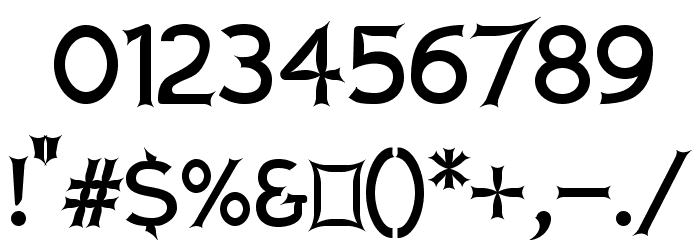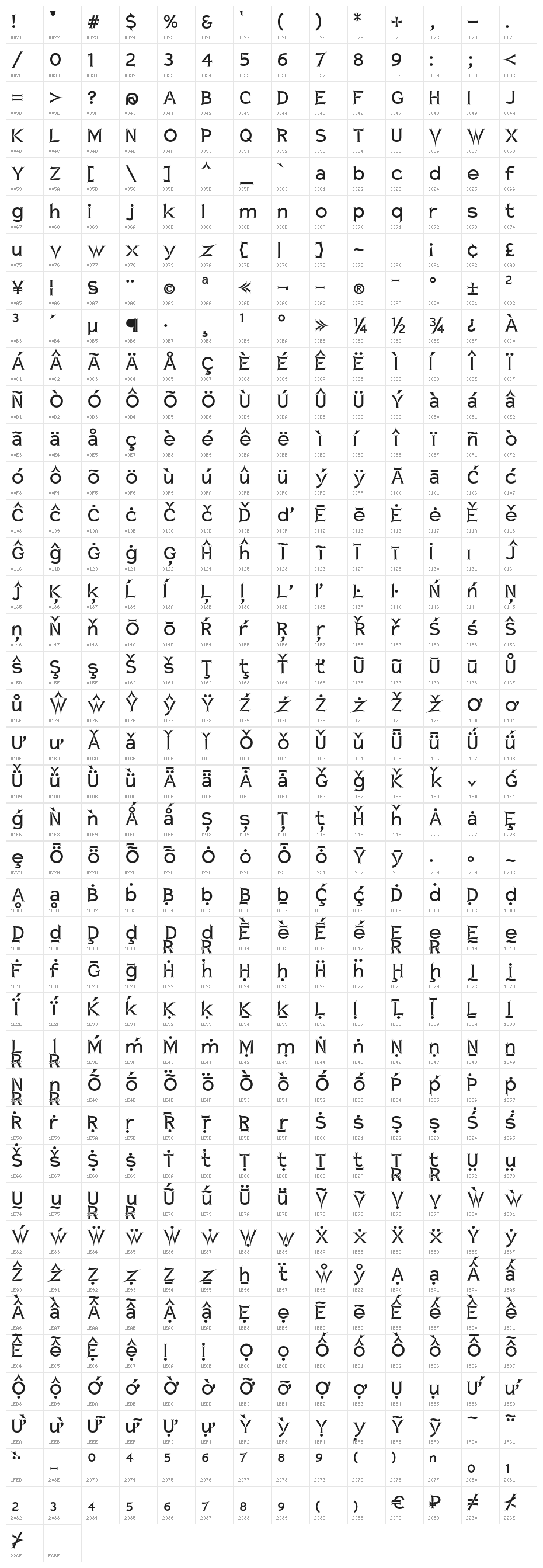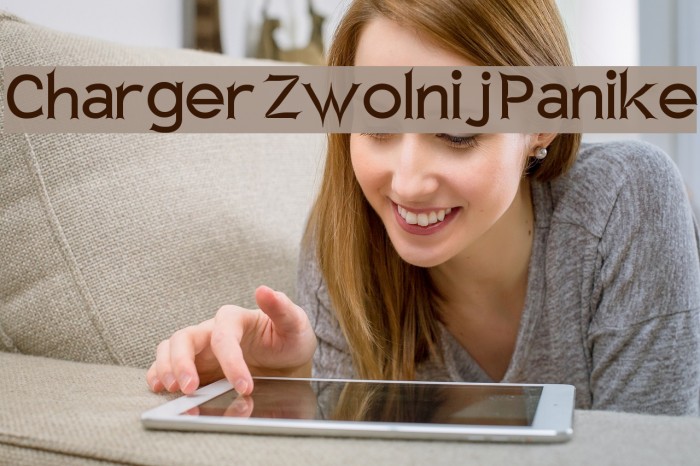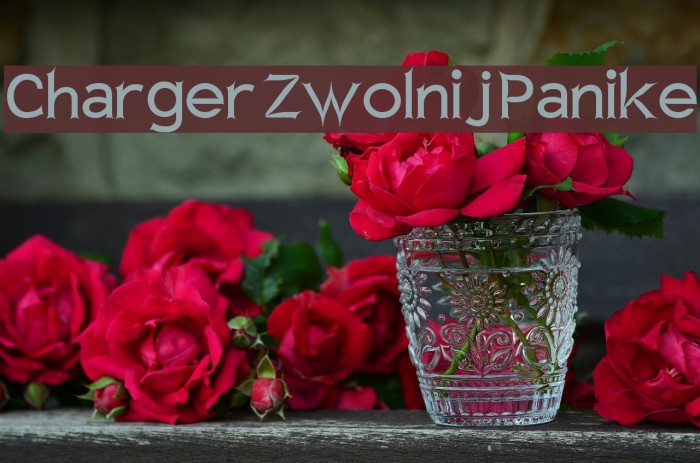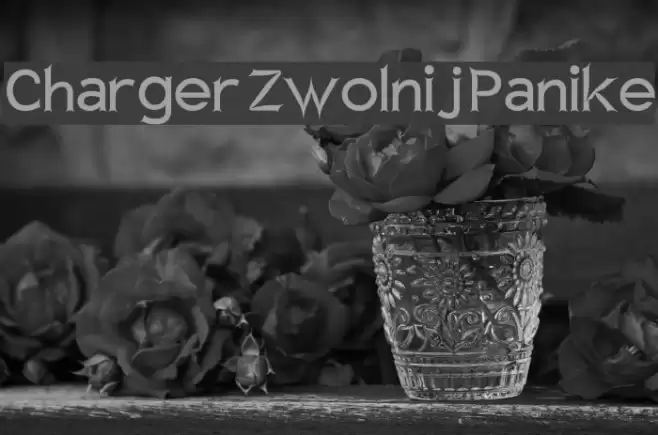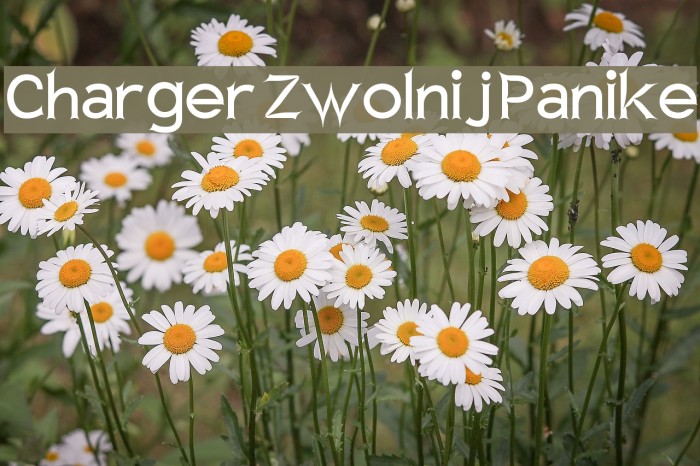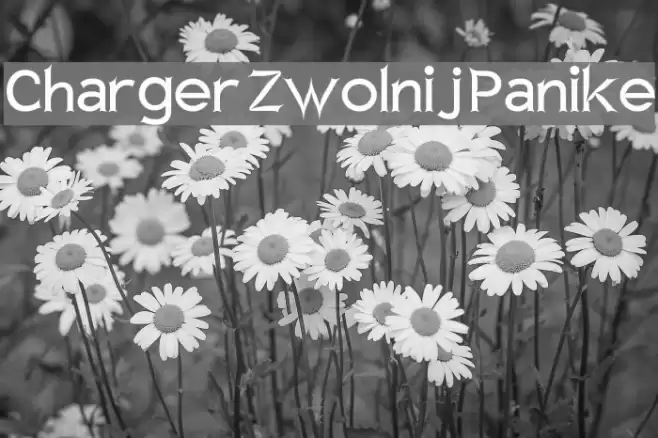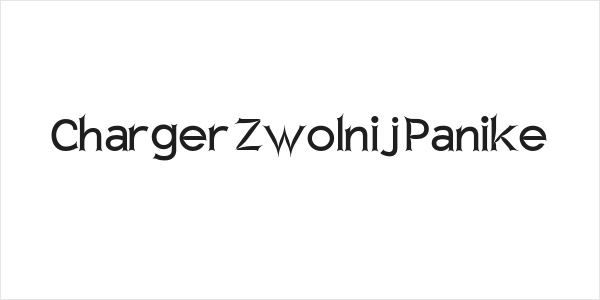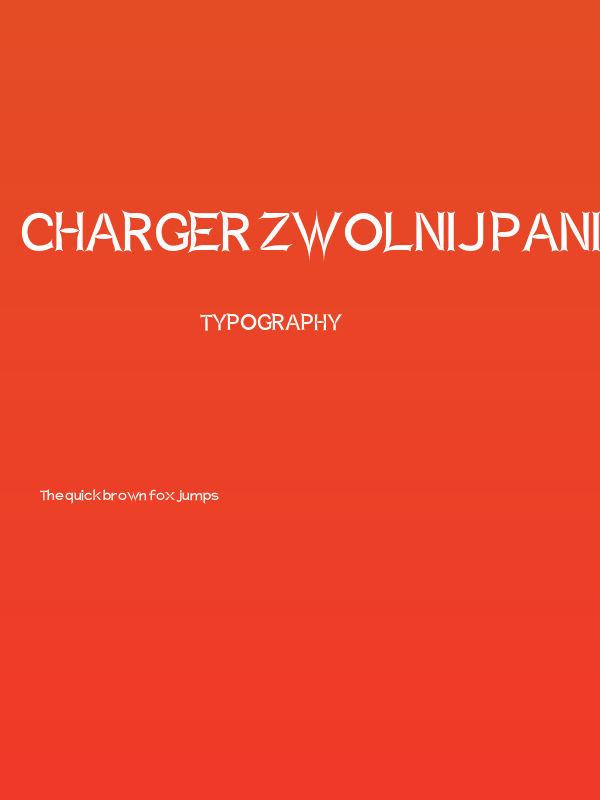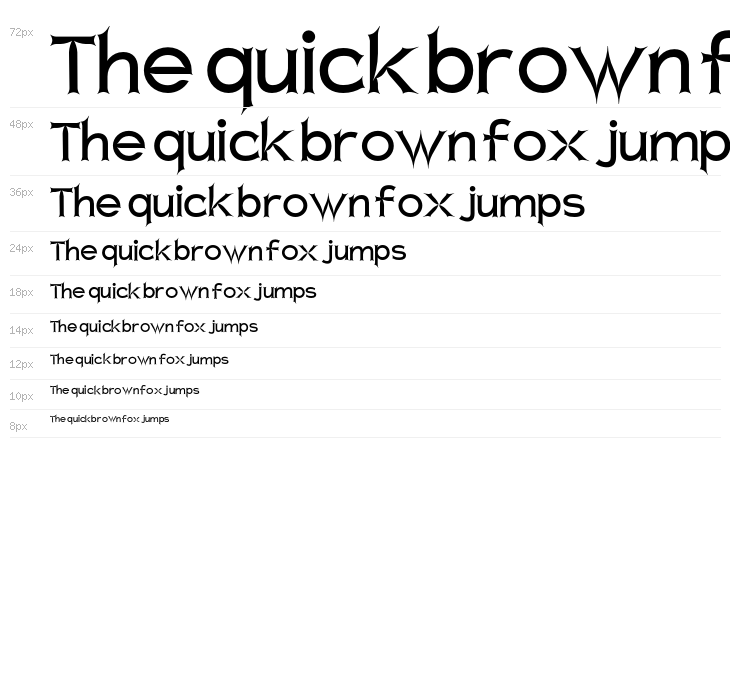
Charger Zwolnij Panike Font
Charger Zwolnij Panike Description
This font features a bold and striking design with sharp, angular serifs that give it a distinctive and edgy appearance. The uppercase letters are particularly prominent, with a strong presence that commands attention. The lowercase letters maintain a consistent style, offering a cohesive look across all characters. The numerals are clear and easy to read, while the special characters add a touch of flair with their unique shapes. Overall, this font combines traditional serif elements with a modern twist, making it suitable for a variety of creative projects.